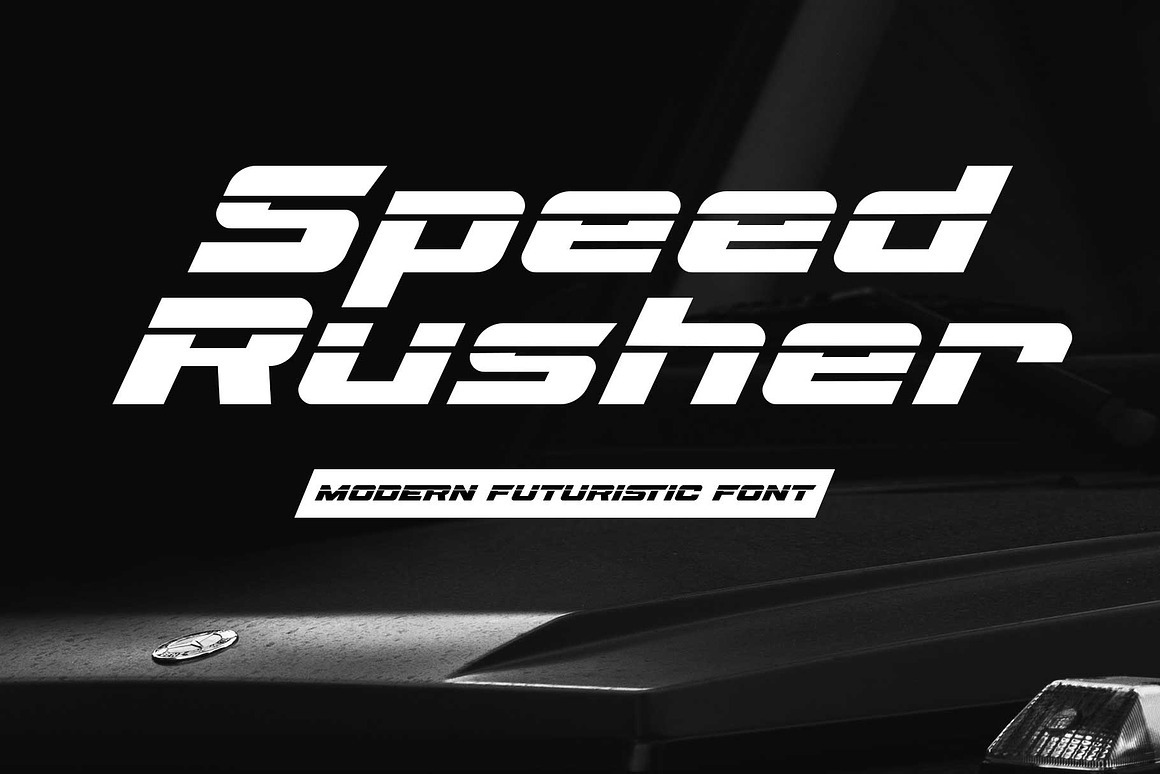
Speed Rusher Font
About Speed Rusher
Speed Rusher is an elegant, sporty font with a cutting-edge futuristic vibe. Designed with sleek laser-cut letter effects and bold strokes, it embodies speed, power, and advanced technology. Perfectly suited for sports-themed and futuristic designs, this font brings a dynamic and modern edge to your projects.